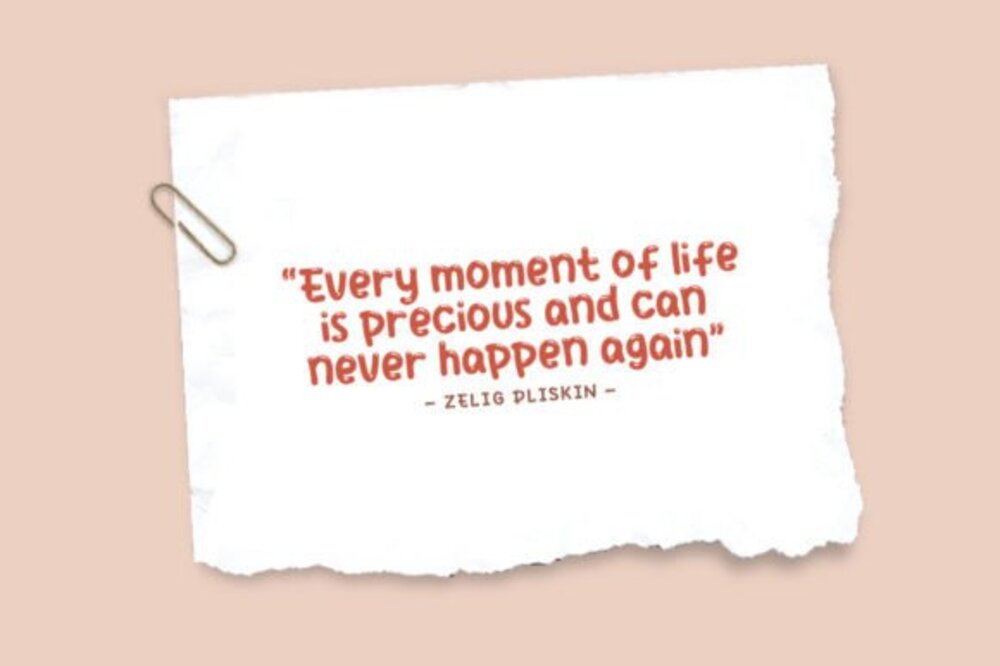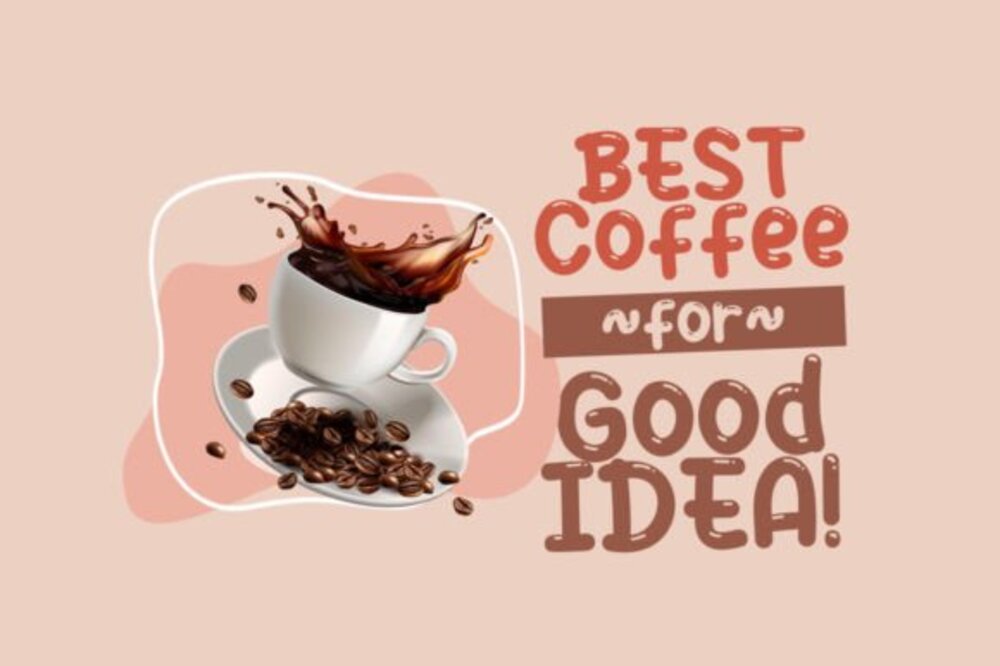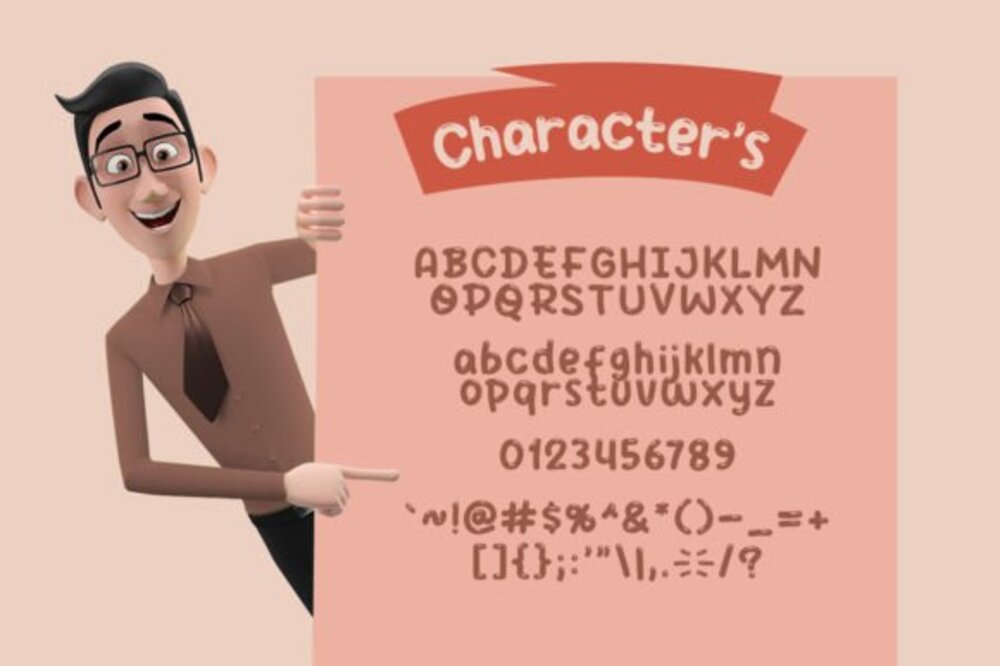
Boba Cups Font
Boba Cups is a fun and bubbly font inspired by the playful charm of bubble tea. Its rounded letters and smooth curves evoke the lighthearted joy of sipping your favorite drink. Perfect for café menus, social media graphics, or quirky designs, Boba Cups adds a sweet and modern touch that’s as delightful as your favorite boba topping!